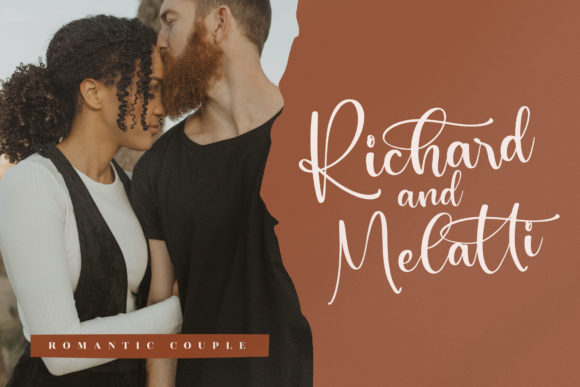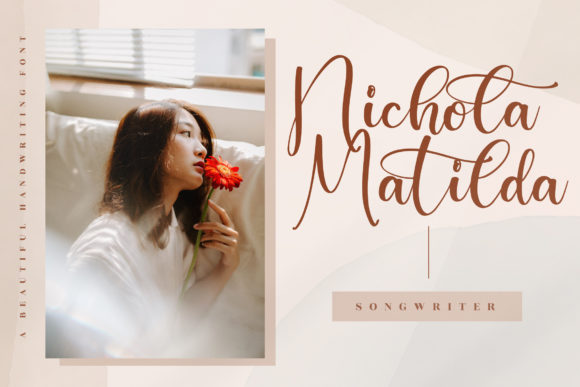
Elliott Font
db-ku.com - Script & Handwritten -- Elliott is an equally sophisticated and bold handwritten font that’s great for delivering any message with confidence, authenticity and charm. This font is PUA encoded which means you can access all glyphs and swashes with ease!